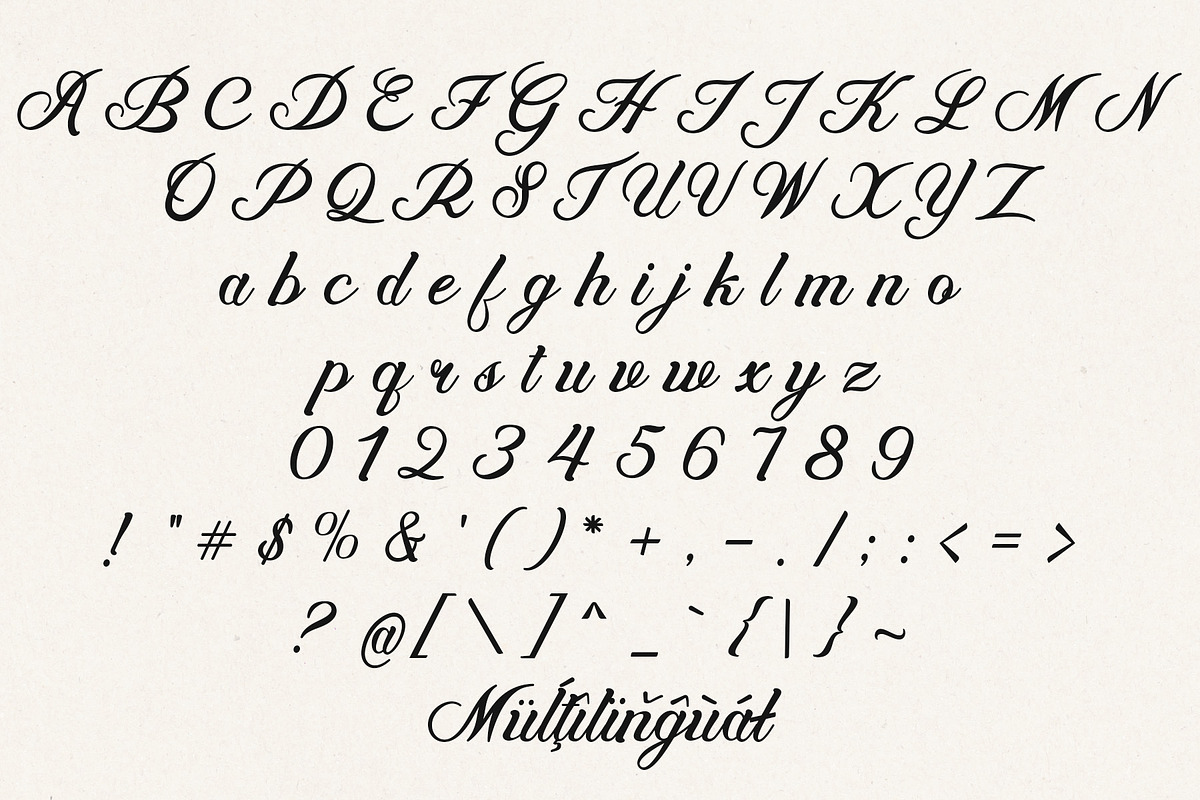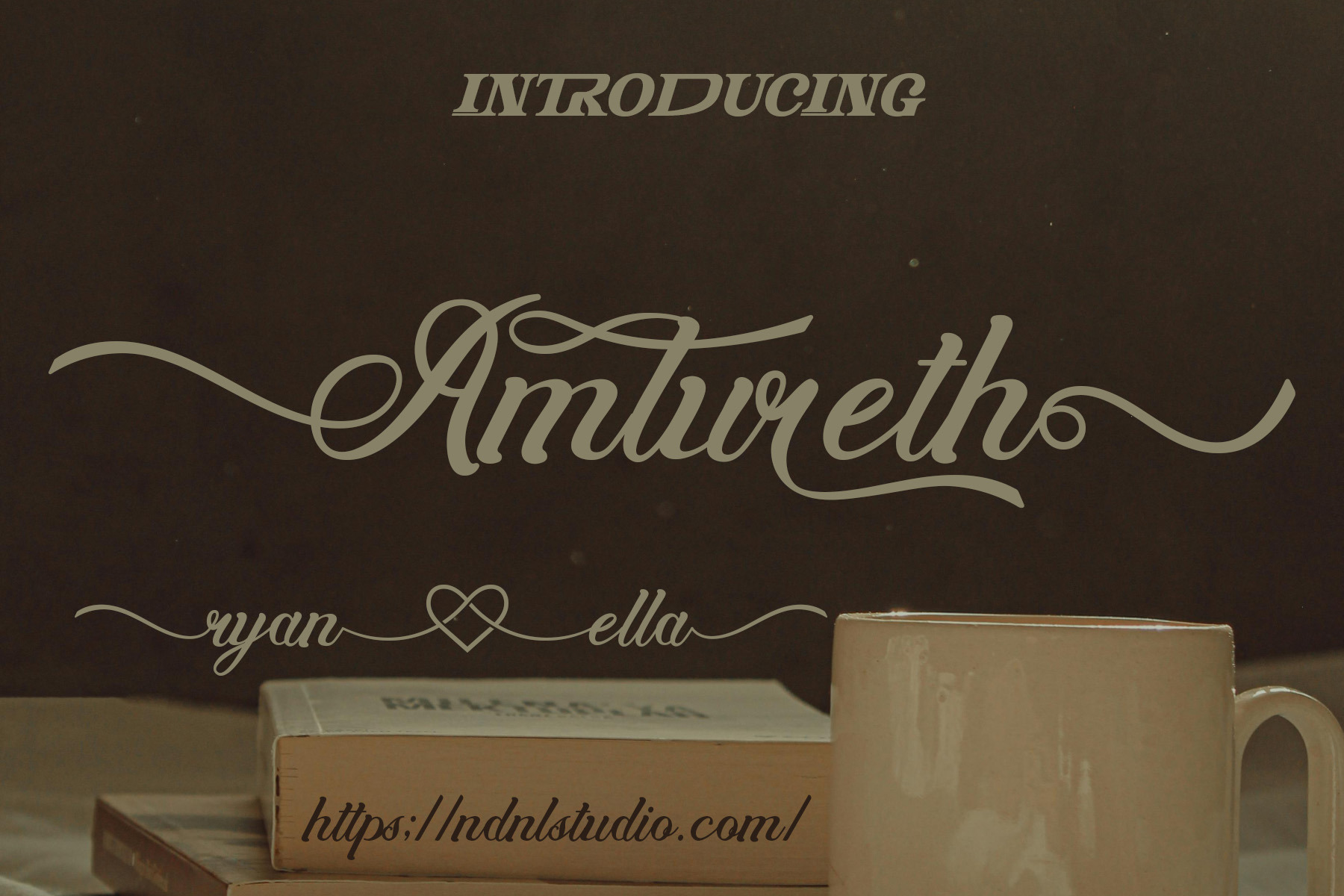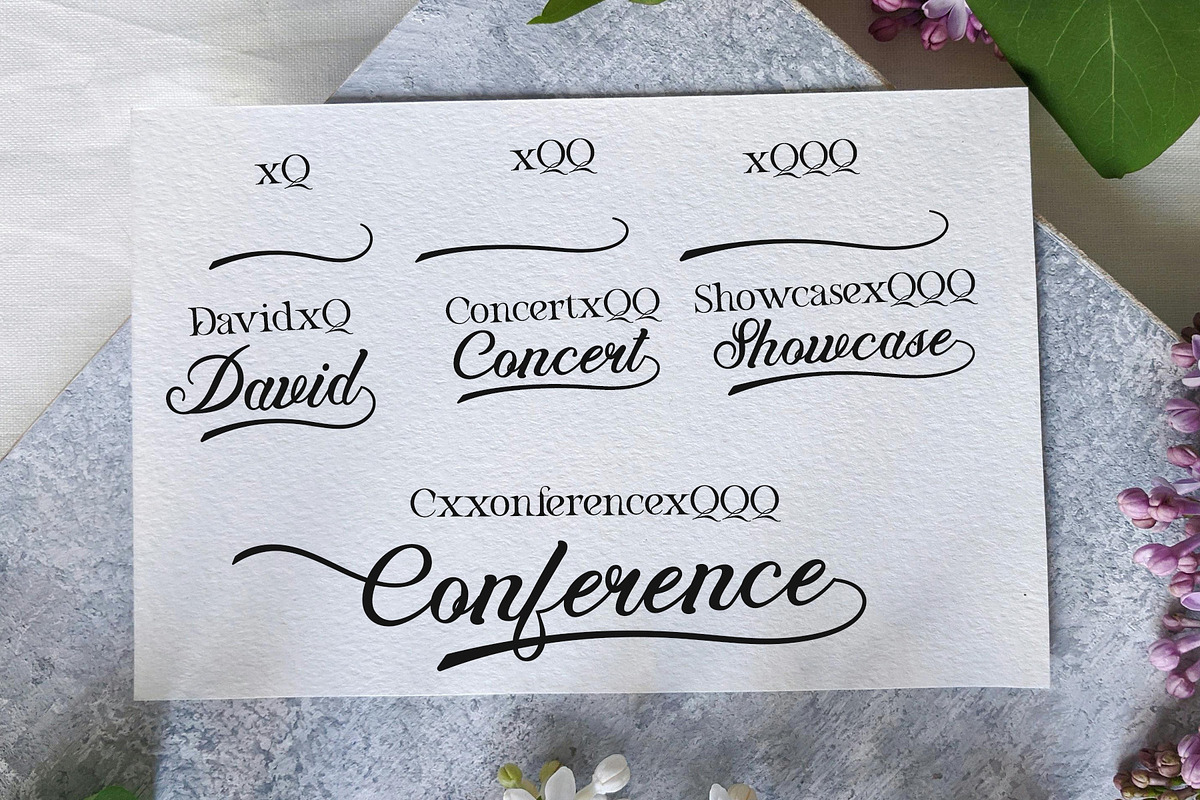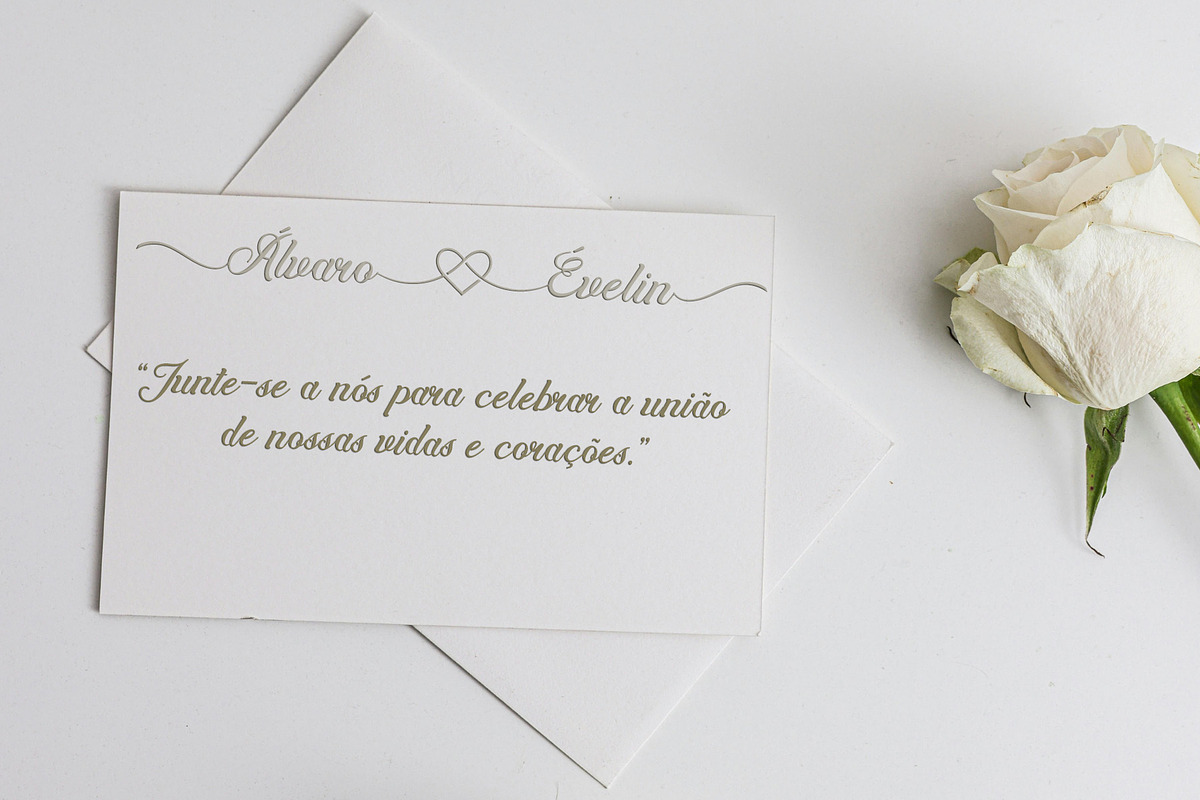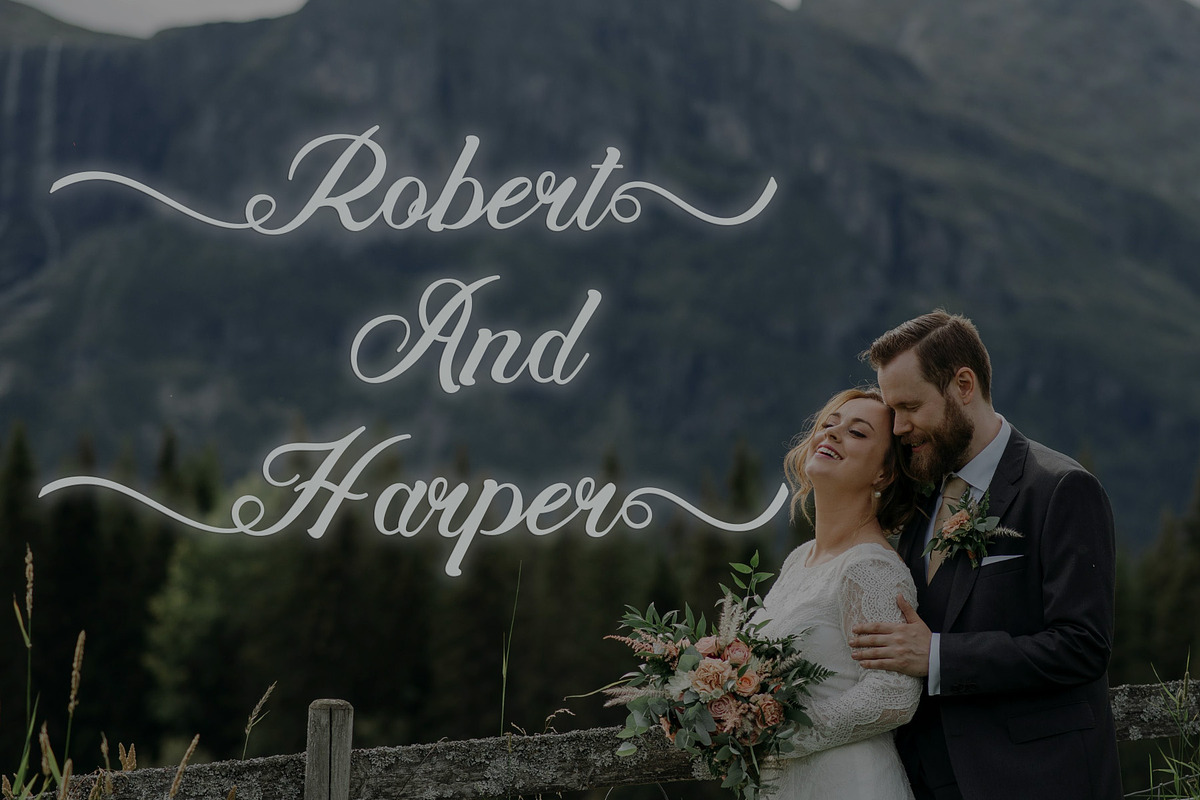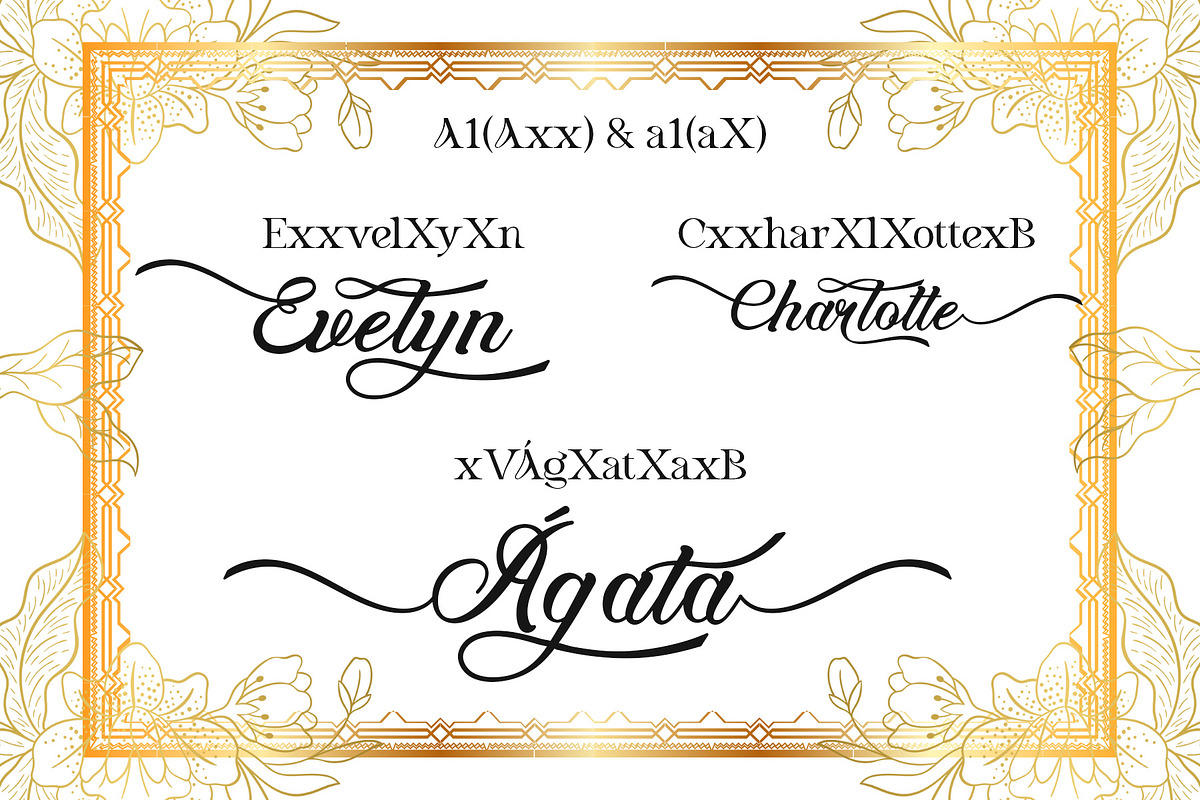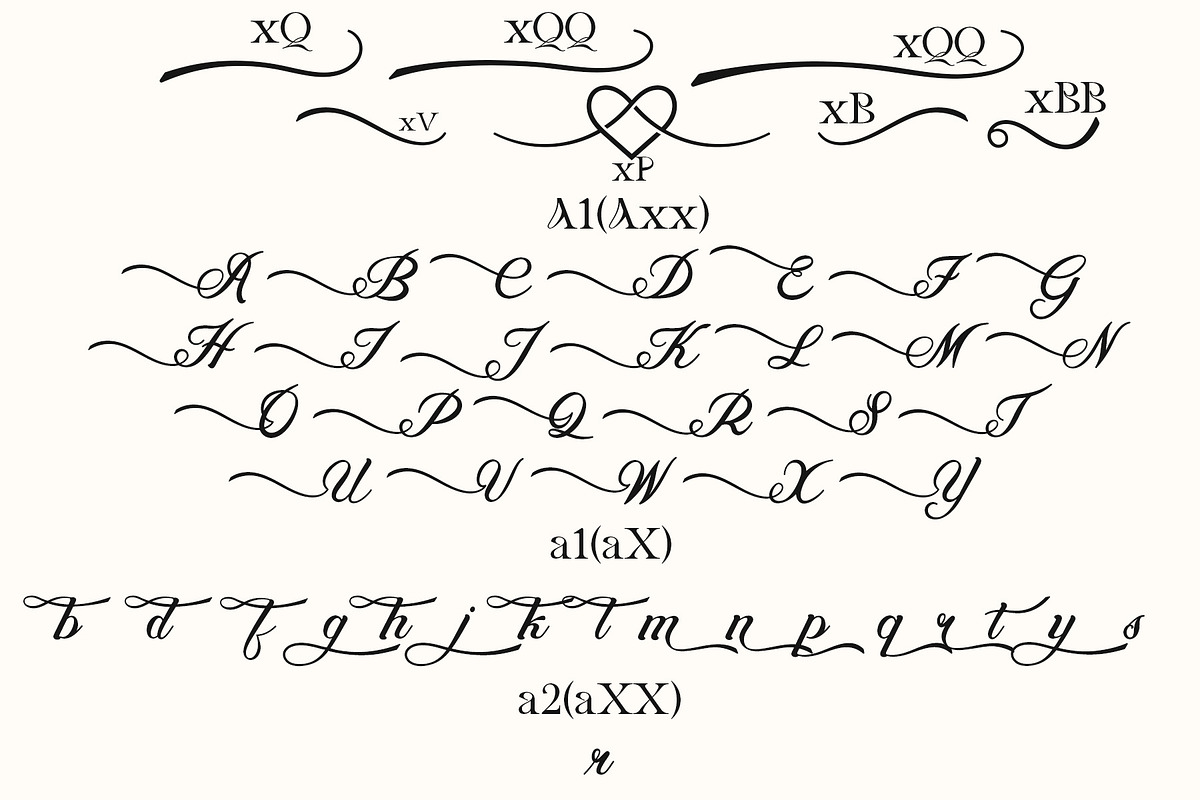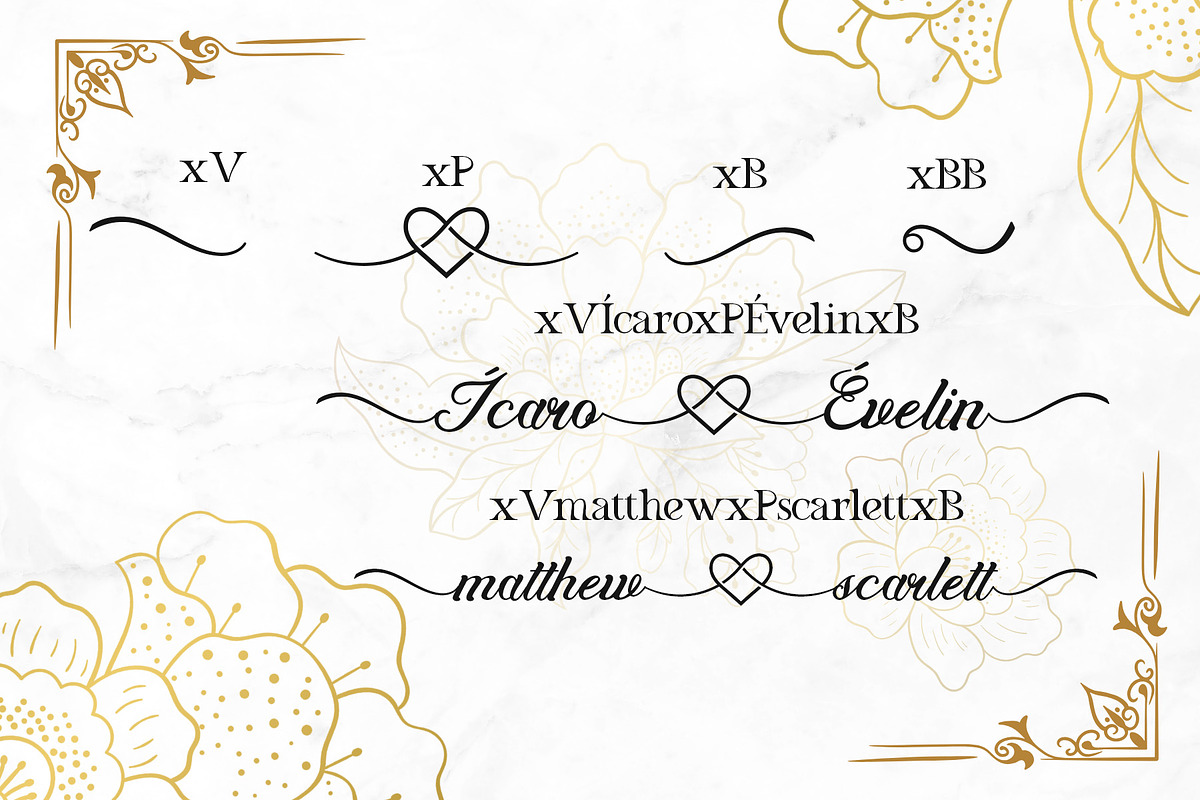
Amlureth – Calligraphy Font
Introducing Amlureth!
Amlureth Font is an elegant script typeface featuring graceful curves and refined swashes. It is perfect for wedding invitations, branding logos, product packaging, greeting cards, and any project that requires a romantic and captivating touch. Each character is crafted with attention to detail, bringing a sense of sophisticated artistry that makes your designs stand out beautifully and emotionally.
If the software you are using does not fully support OpenType features (such as Stylistic Alternates), you can still access the decorative characters of the font using the following method:
Examples:
- Axx → Decorative A (if available)
- aX → Decorative a (if available)
And also:
- AxX → Decorative A2 (if available)
- aXX → Decorative a2 (if available)
- aXXX → Decorative a3 (if available)
Swash
xQ → Swash1
xQQ → Swash2
xQQQ → Swash3
xV→ Swash4
xB → Swash5
xBB → Swash6
xP → Swash7